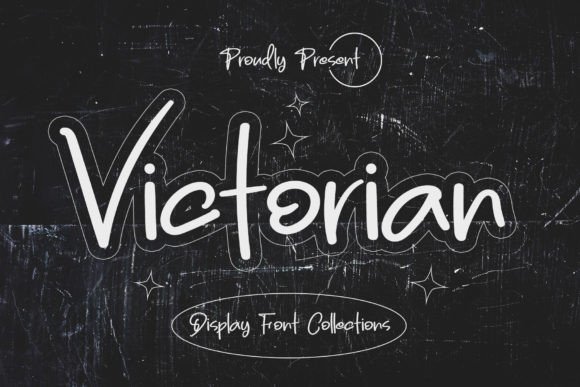
Dive into the realm of elegance and charm with Victorian Font, a captivating script font family that exudes personality and sophistication. Designed by the talented YanStudio, Victorian is not just a font; it's an artistic expression that transforms your digital creations into masterpieces.
Victorian's meticulously crafted characters dance across the screen, leaving a trail of beauty and inspiration in their wake. Each letter is a work of art, featuring graceful curves, playful swashes, and delicate flourishes that evoke a sense of timeless elegance. Whether you're designing logos, crafting invitations, or creating social media graphics, Victorian adds a touch of refinement and individuality to every project.
Immerse yourself in the versatility of Victorian, a font that effortlessly adapts to a myriad of design styles. Its charming personality shines through in logos and branding, adding a touch of whimsy and playfulness to your business identity. Unleash your creativity in crafting wedding invitations and greeting cards, where Victorian's elegant script adds a touch of romance and sophistication. Elevate your social media presence with eye-catching graphics and quotes that pop off the screen, thanks to Victorian's captivating presence.
With Victorian as your creative companion, you'll discover a world of possibilities. Let your imagination soar as you explore the limitless potential of this remarkable font. Whether you're a seasoned designer or just starting your creative journey, Victorian is the perfect font to elevate your work and make a lasting impression.